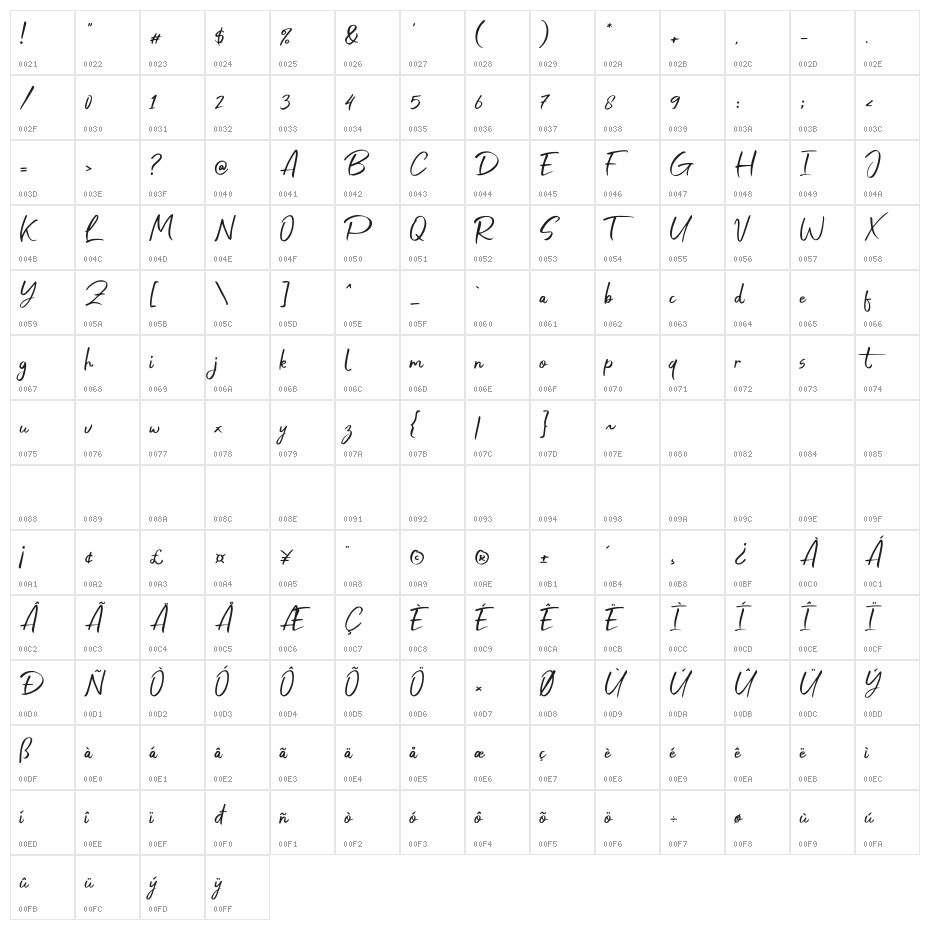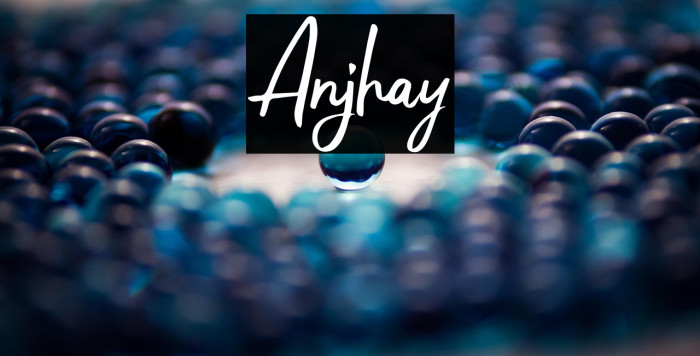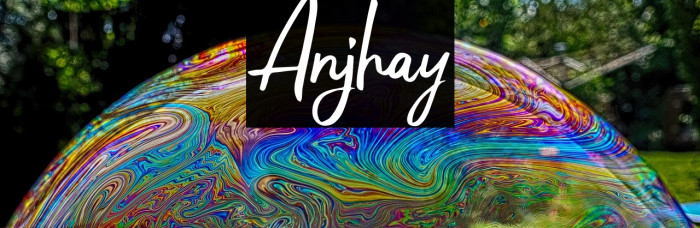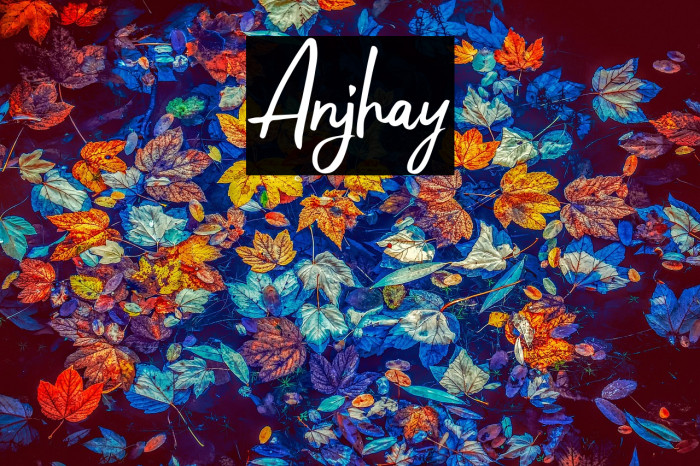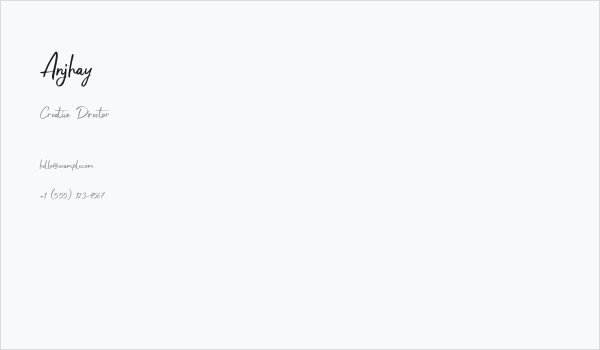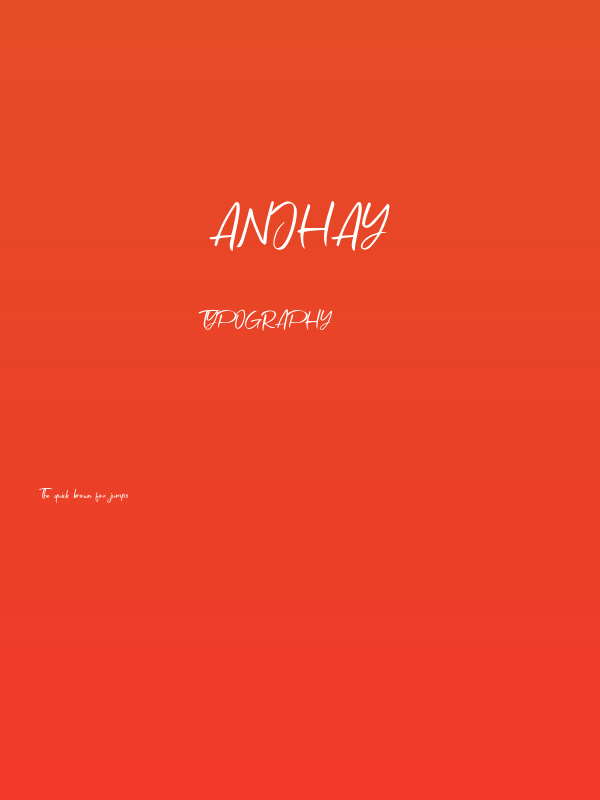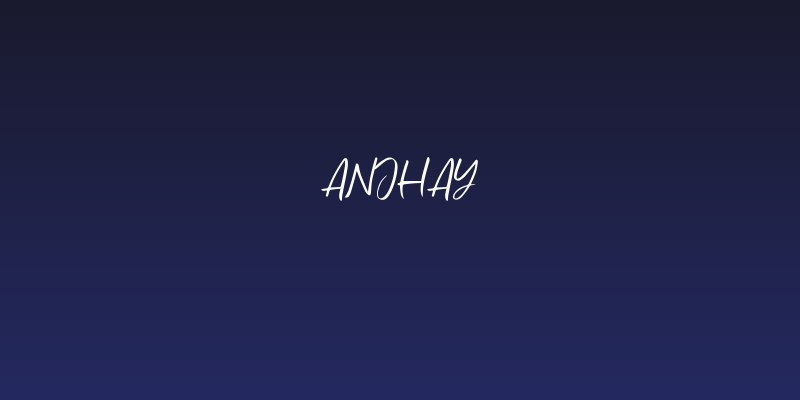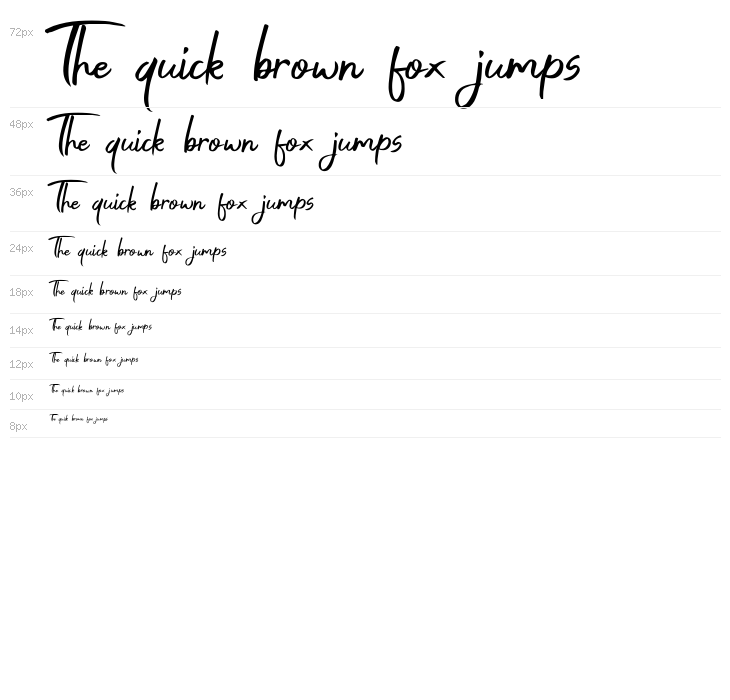
Anjhay Font
Anjhay Description
This font features a dynamic and fluid script style, characterized by its elegant, flowing strokes and a handwritten appearance. The uppercase letters are bold and slightly slanted, giving a sense of movement and energy. The lowercase letters maintain a consistent style with smooth curves and a natural, cursive flow. The numerals and special characters are designed to complement the overall aesthetic, with a similar emphasis on fluidity and elegance. This font is perfect for projects that require a personal touch or a sense of sophistication.
| Overall Style | Elegant, Handwritten |
| Proposed Projects | Ideal for wedding invitations, greeting cards, personal branding, and elegant packaging designs. |